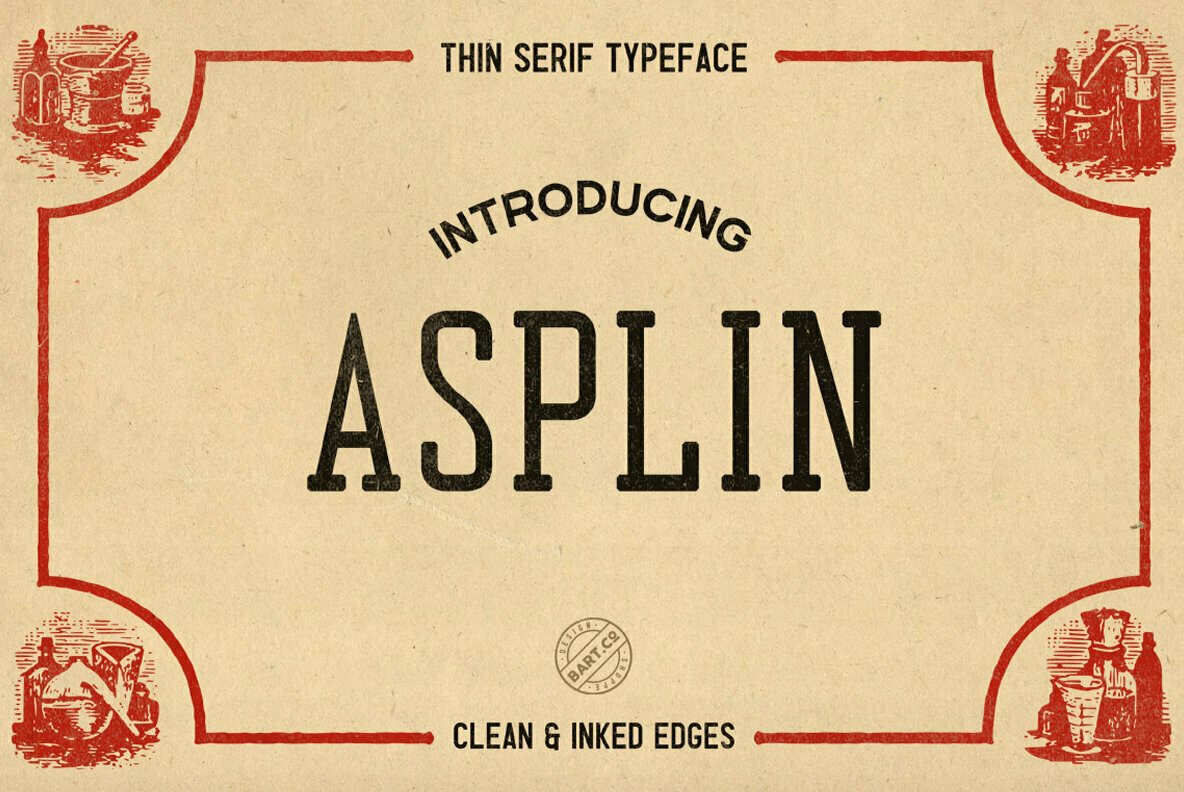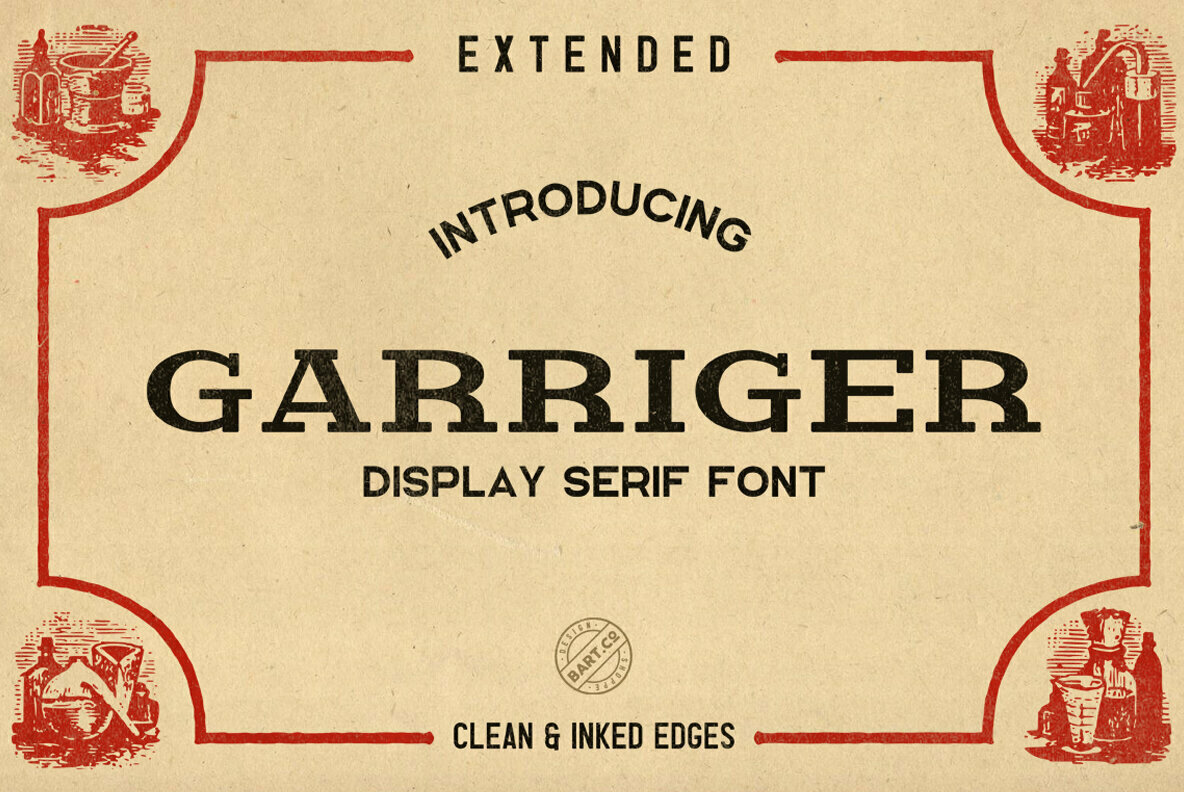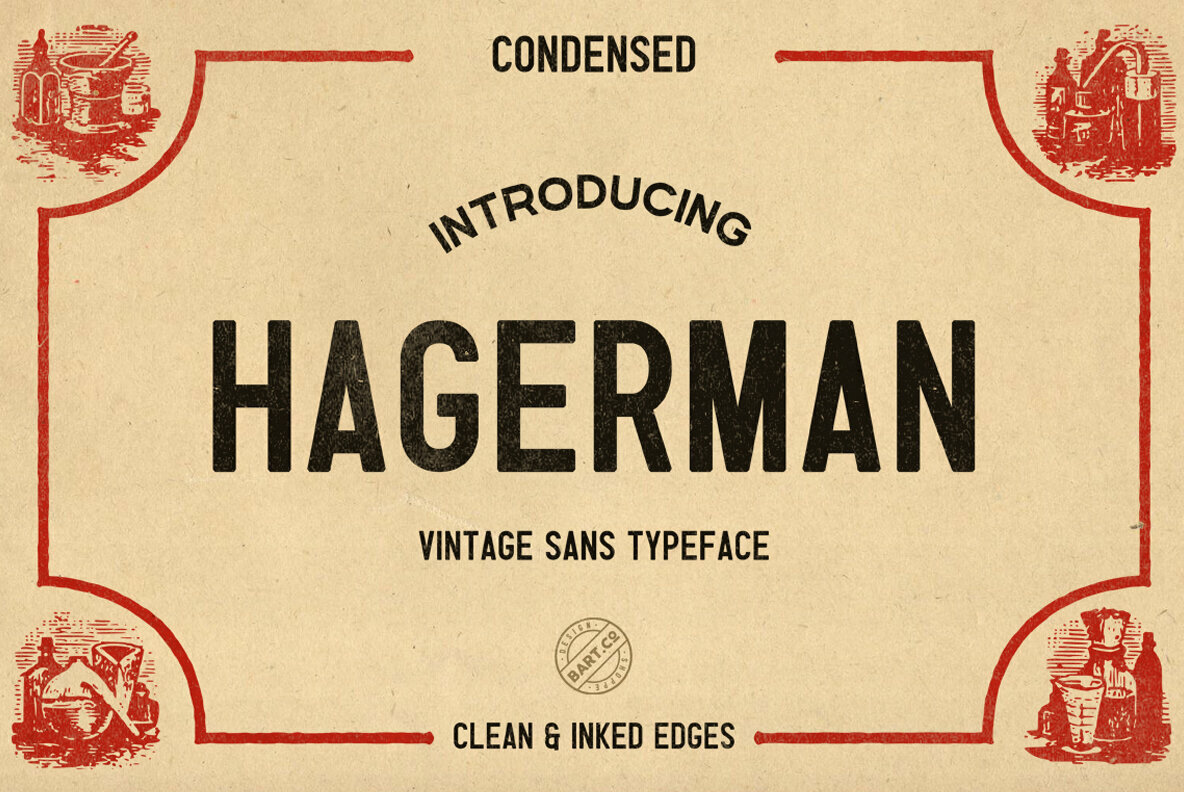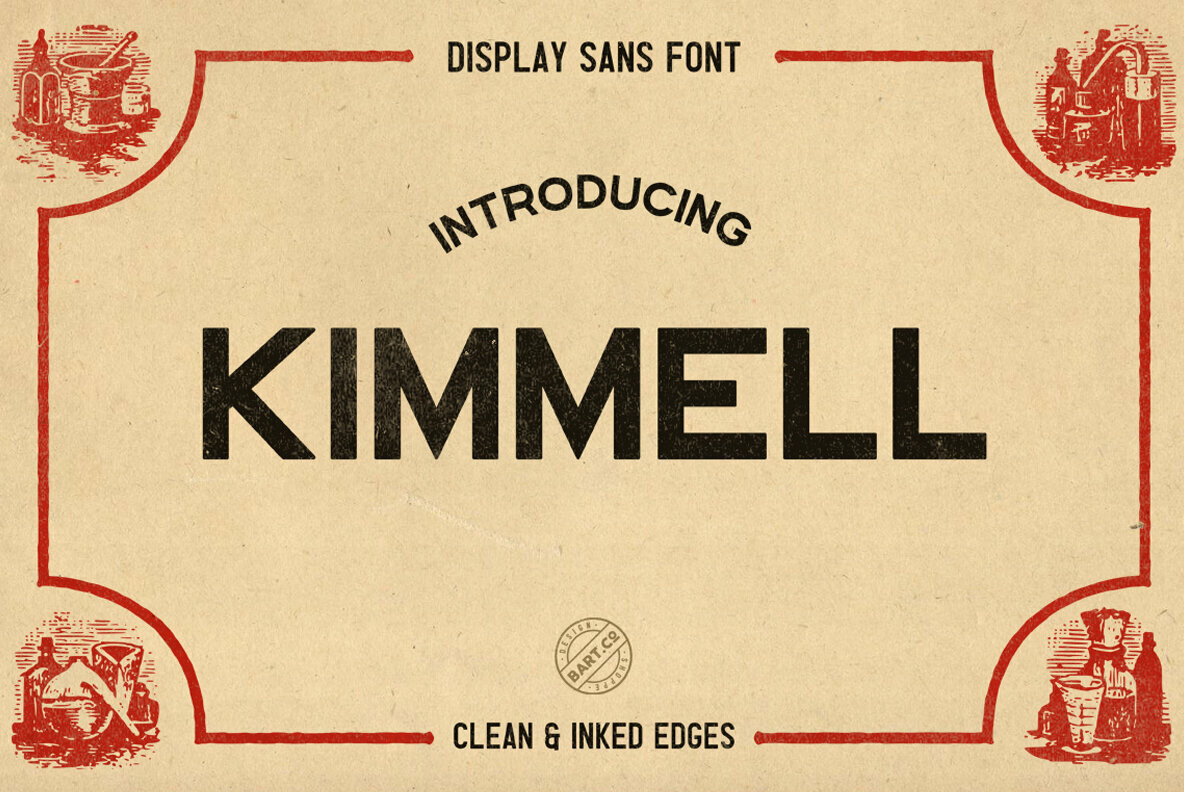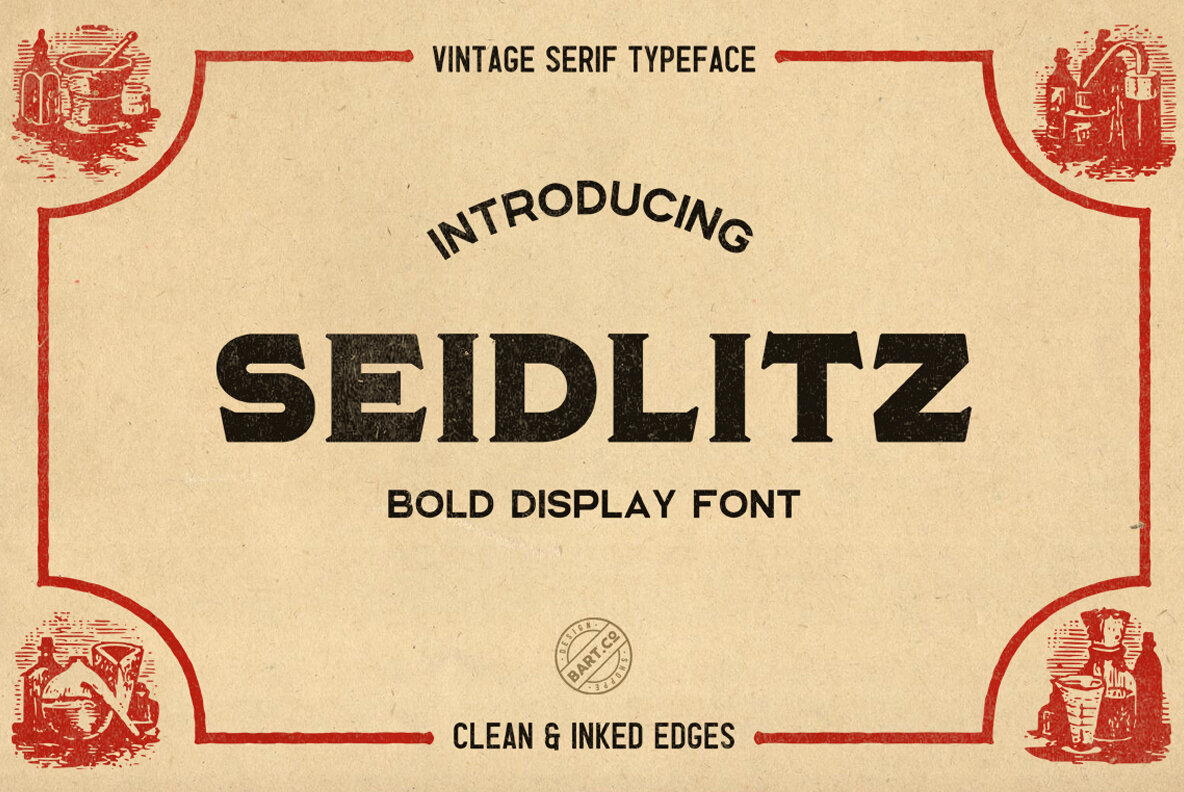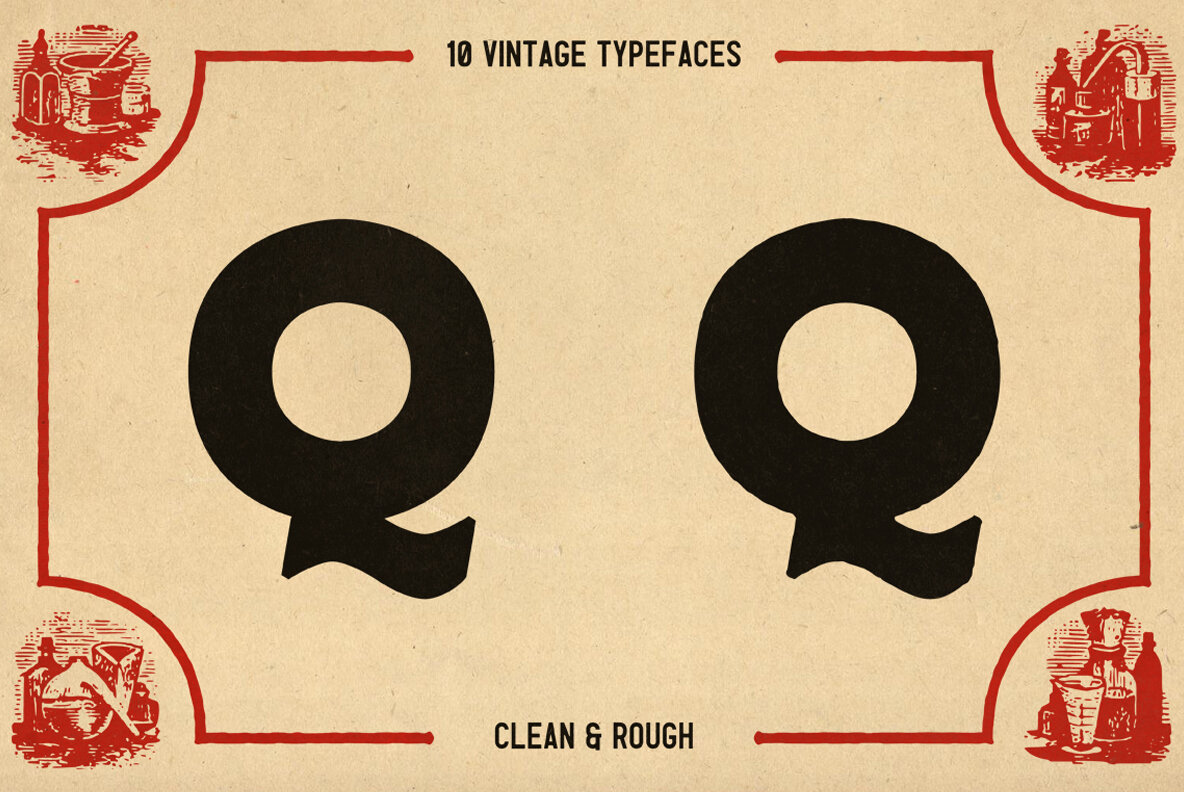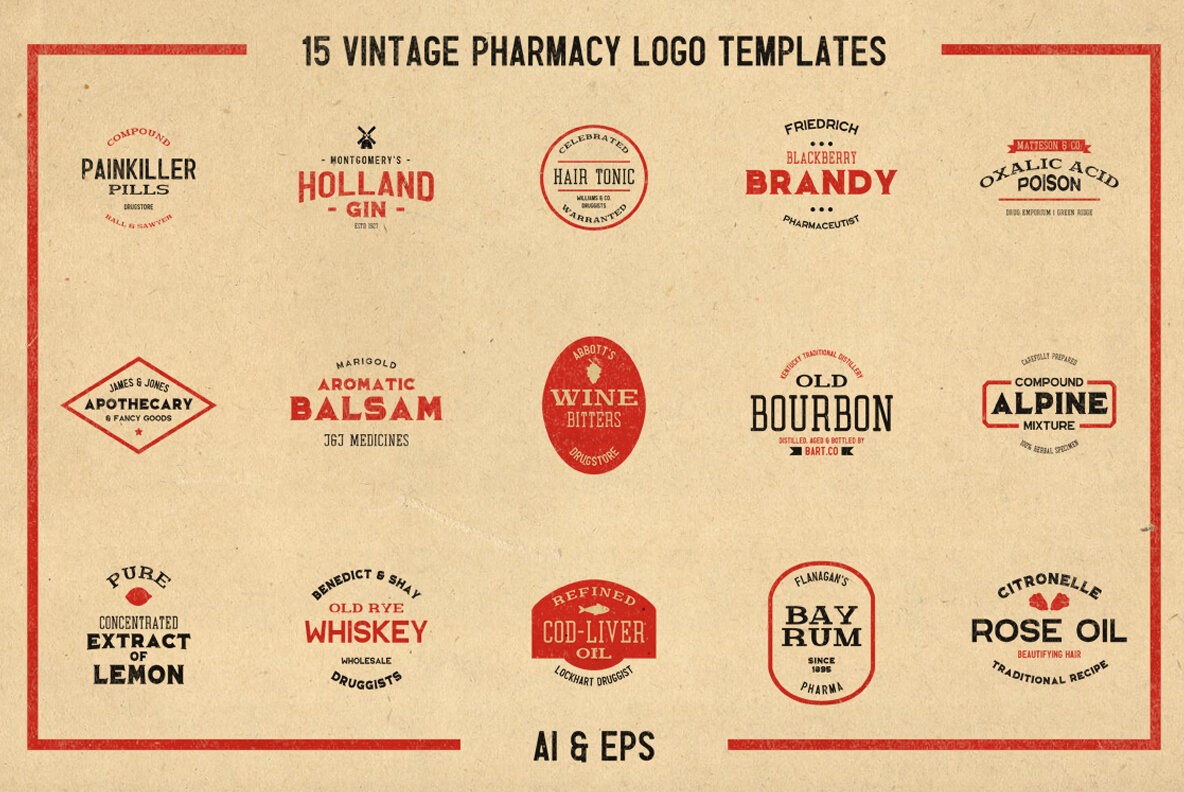
The Apothecary Collection Font
Asplin Regular
Garriger Regular
Hagerman Regular
Kimmell Regular
Seidlitz Regular
Asplin Rough
Garriger Rough
Hagerman Rough
Kimmell Rough
Seidlitz Rough
A few months ago I was thinking of creating a few fonts that would match each other. After few weeks of hard work "The Apothecary Collection" is available for sale. All fonts are inspired by vintage medicine and druggists books, labels and signboards.
What does The Apothecary Collection contain?
- Asplin - A thin serif typeface (clean, rough)
- Garriger - A extended vintage serif font (clean, rough)
- Hagerman - A condensed display sans typeface (clean, rough)
- Kimmell - A extended sans typeface (clean, rough)
- Seidlitz - A vintage display typeface (clean, rough)